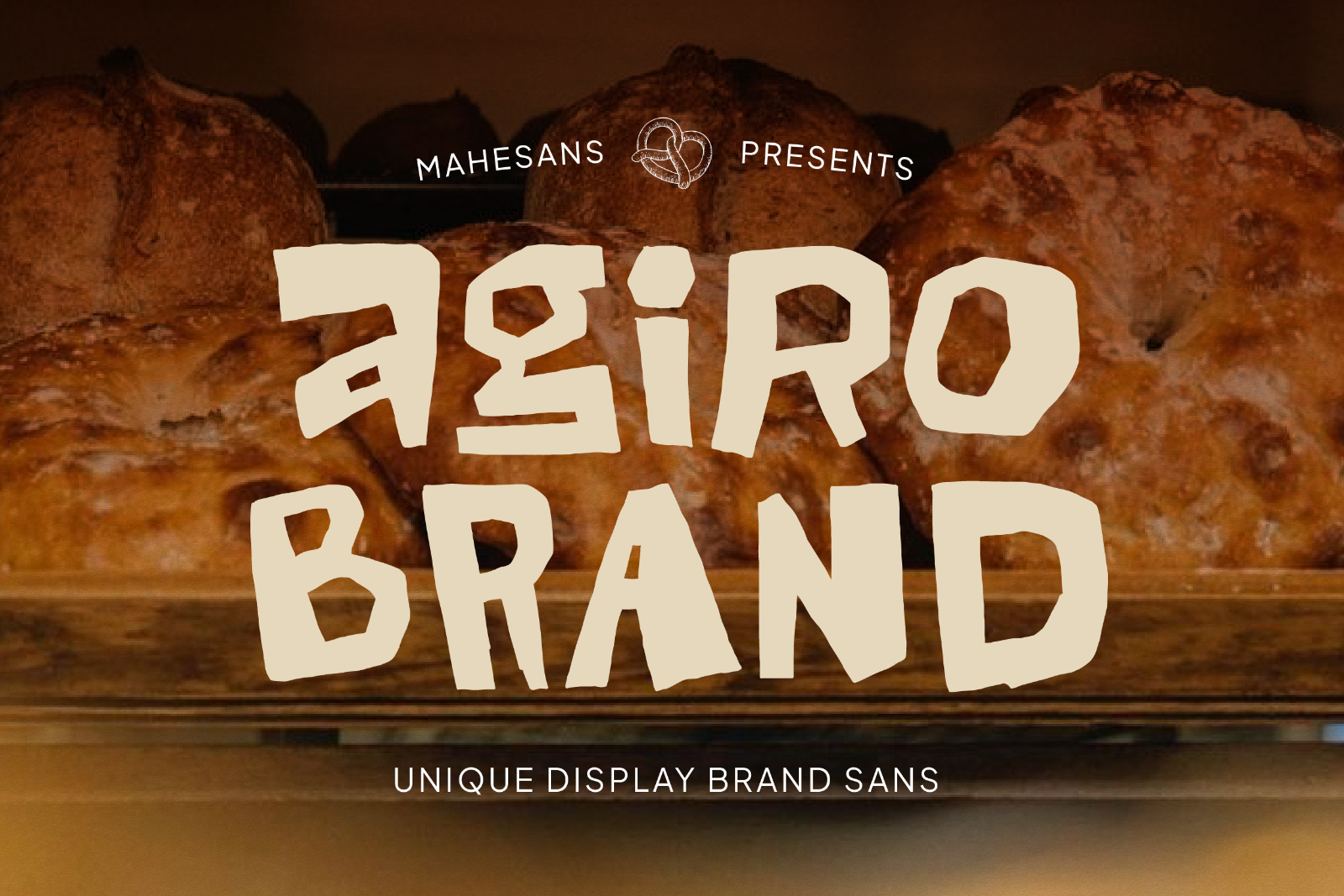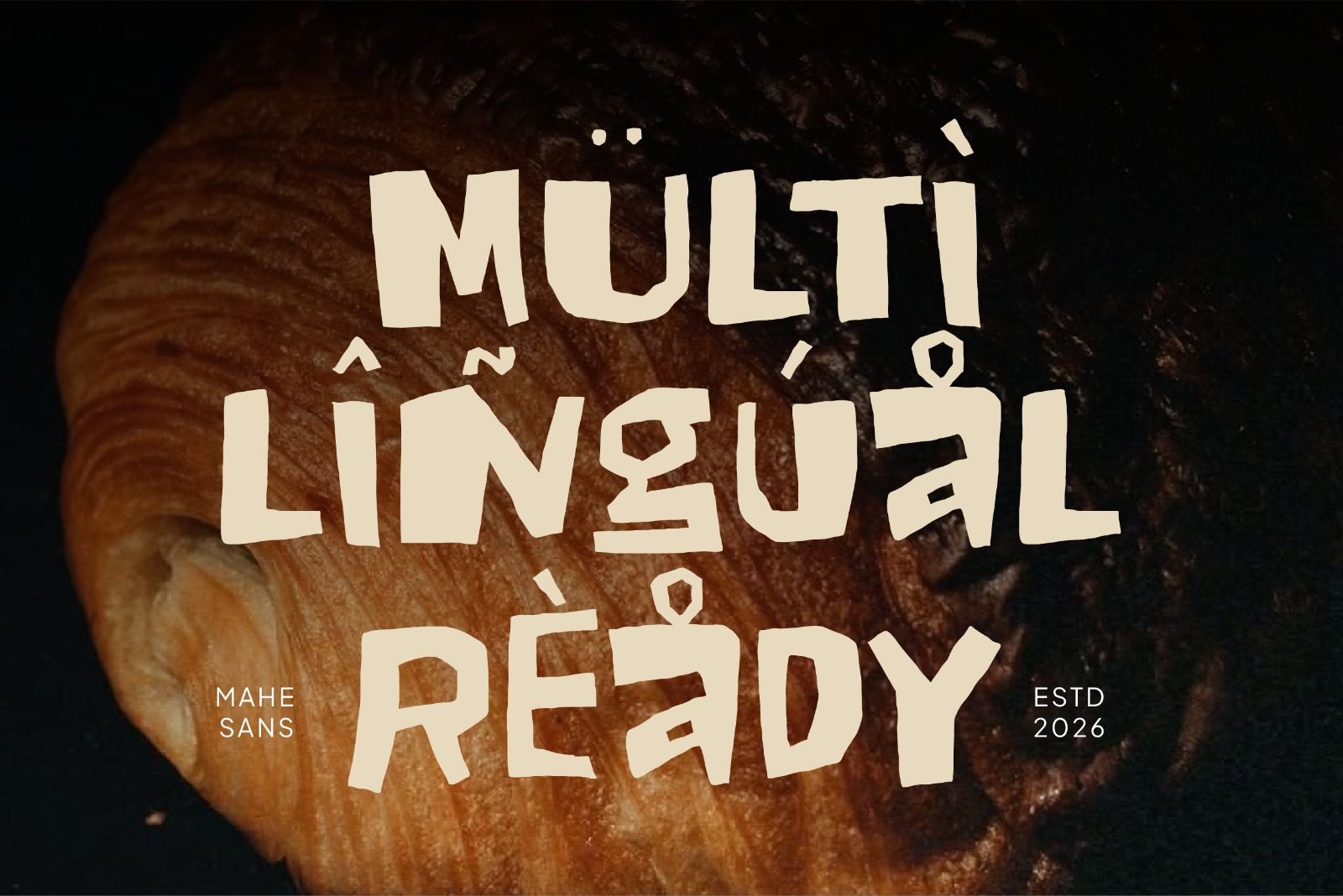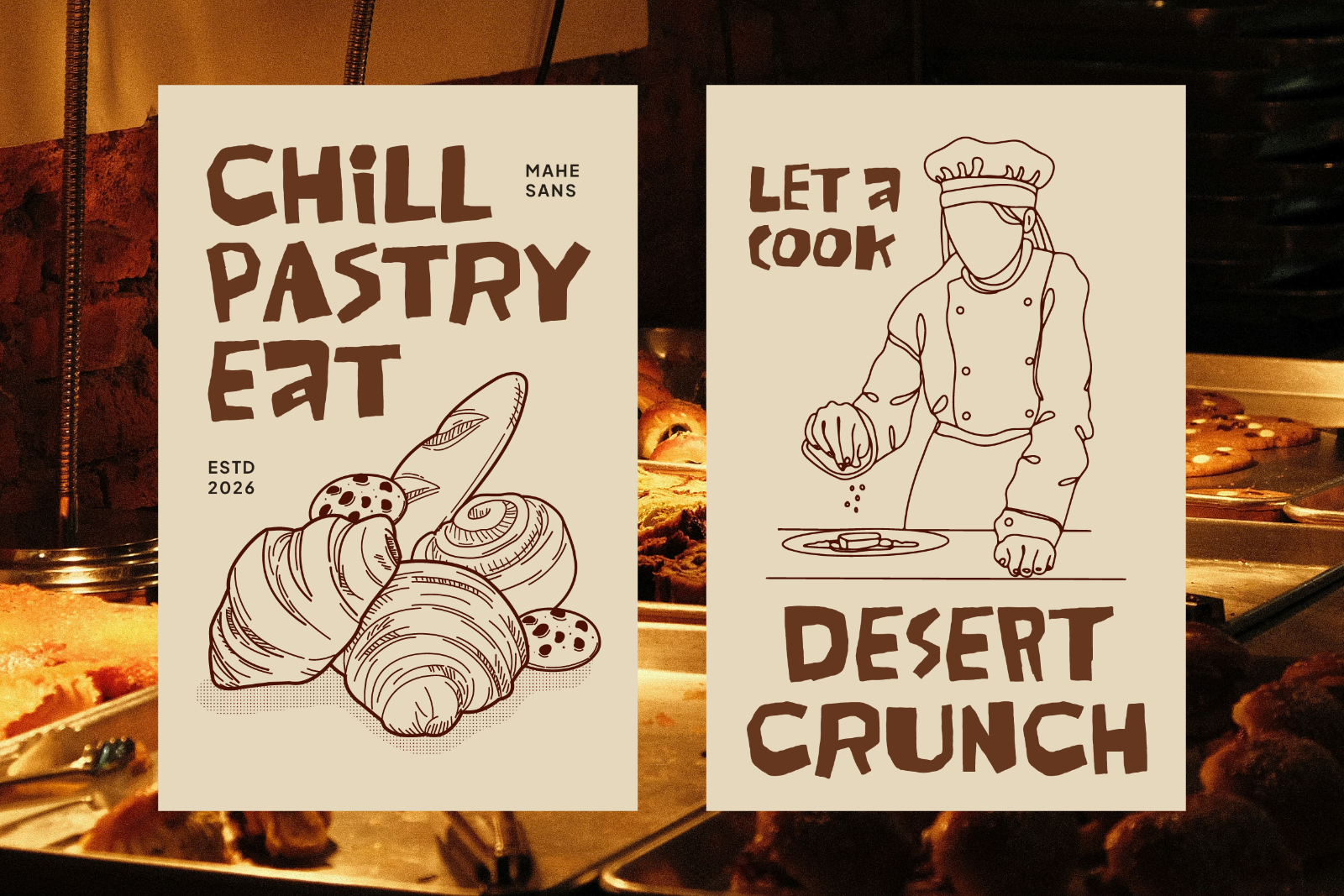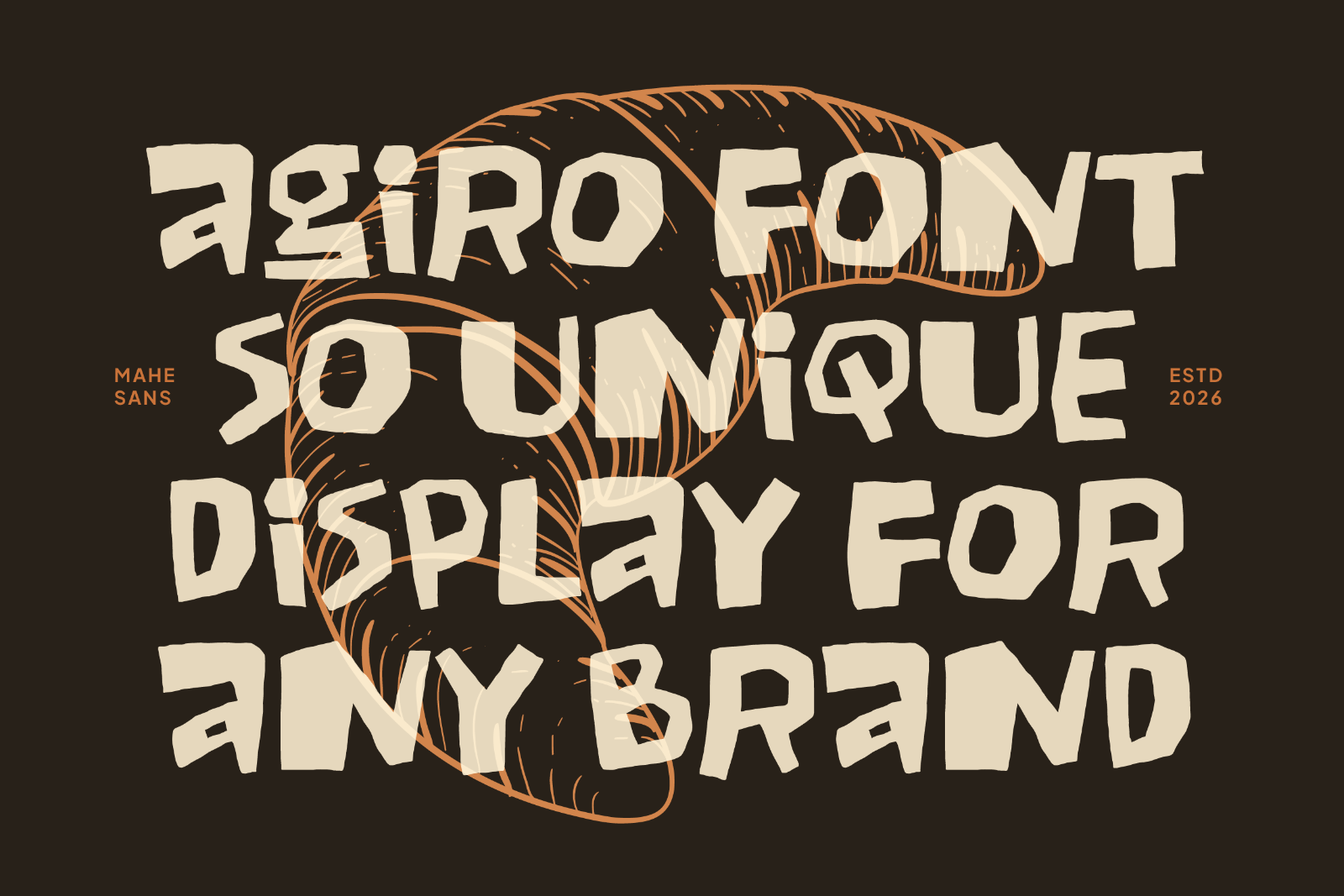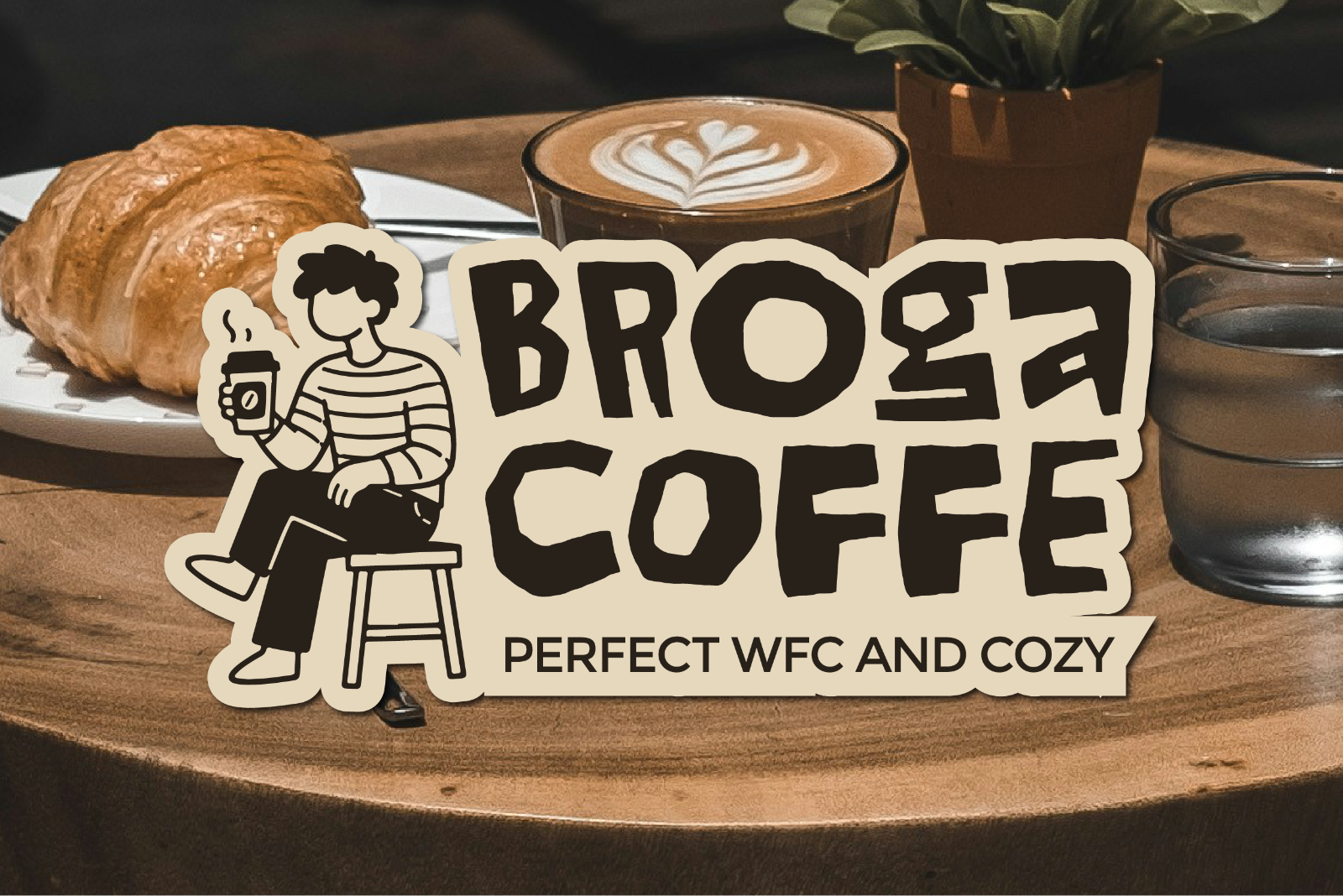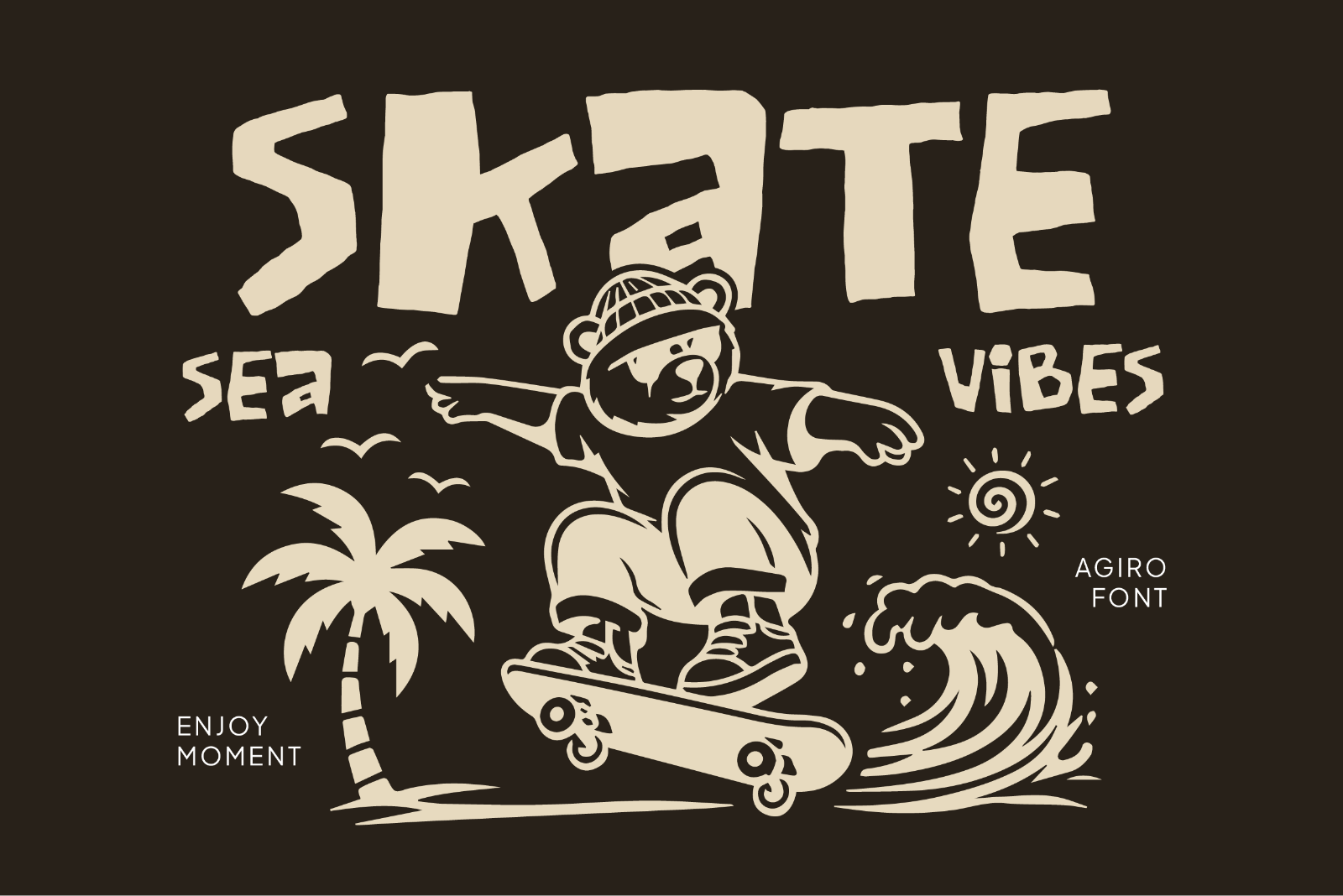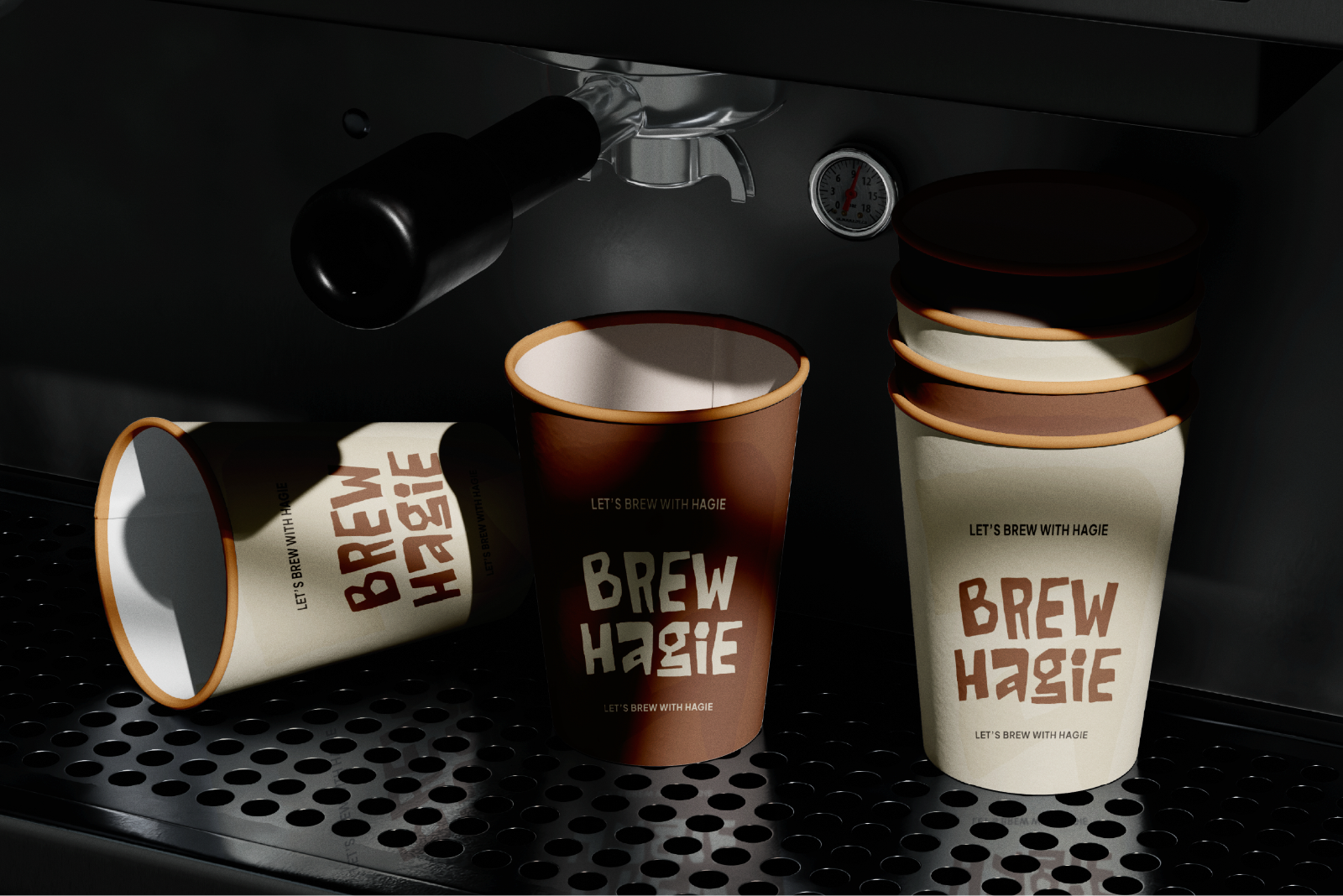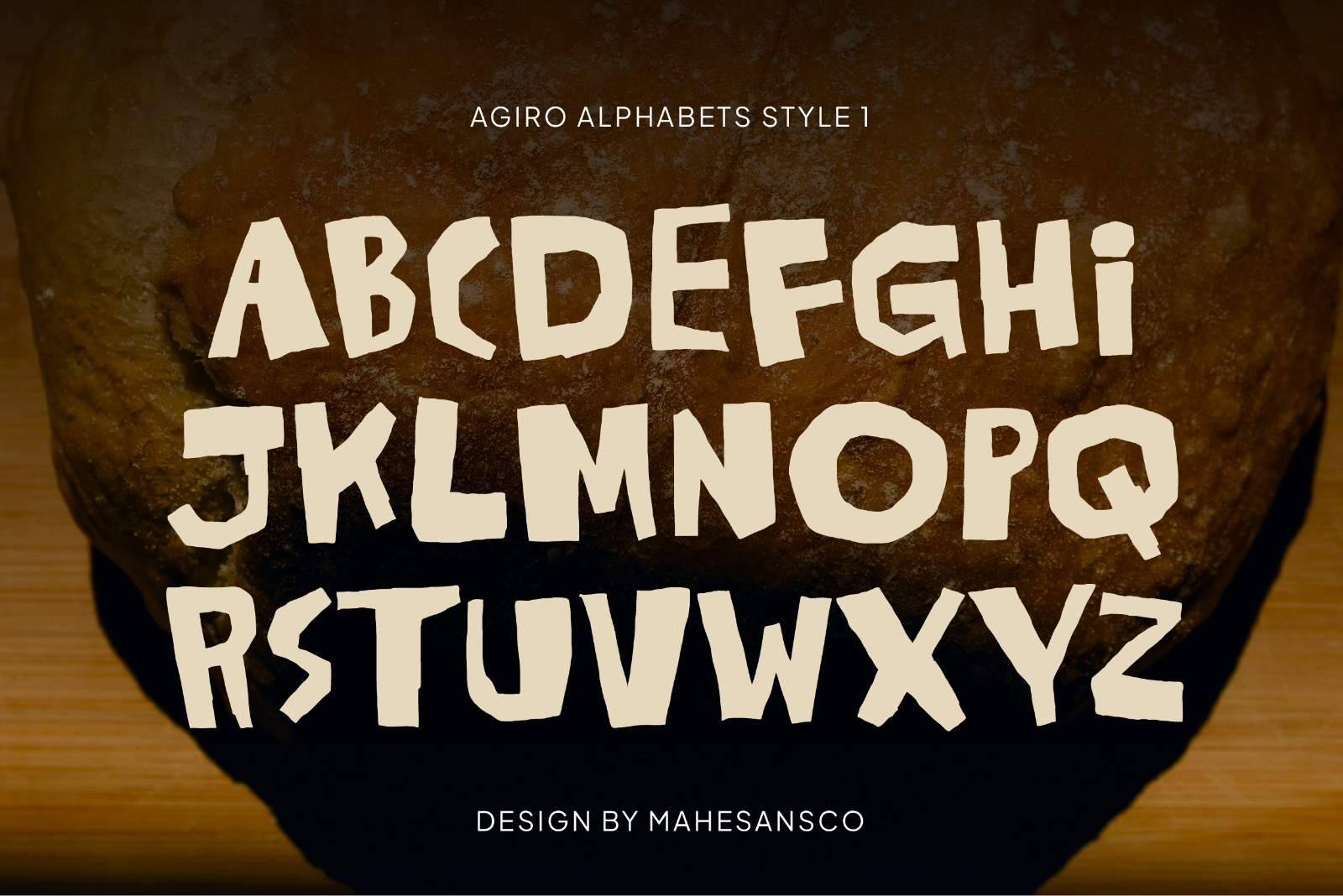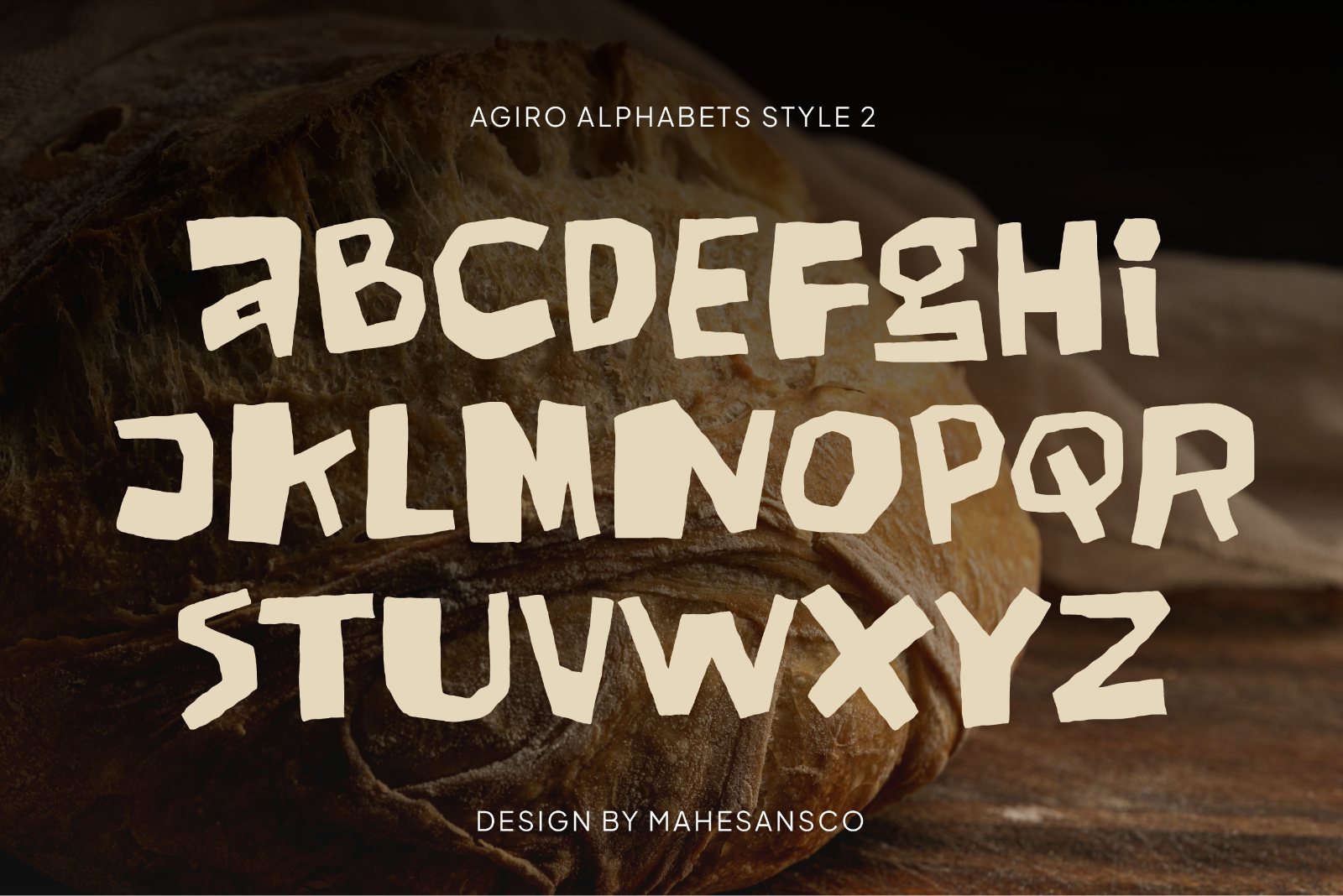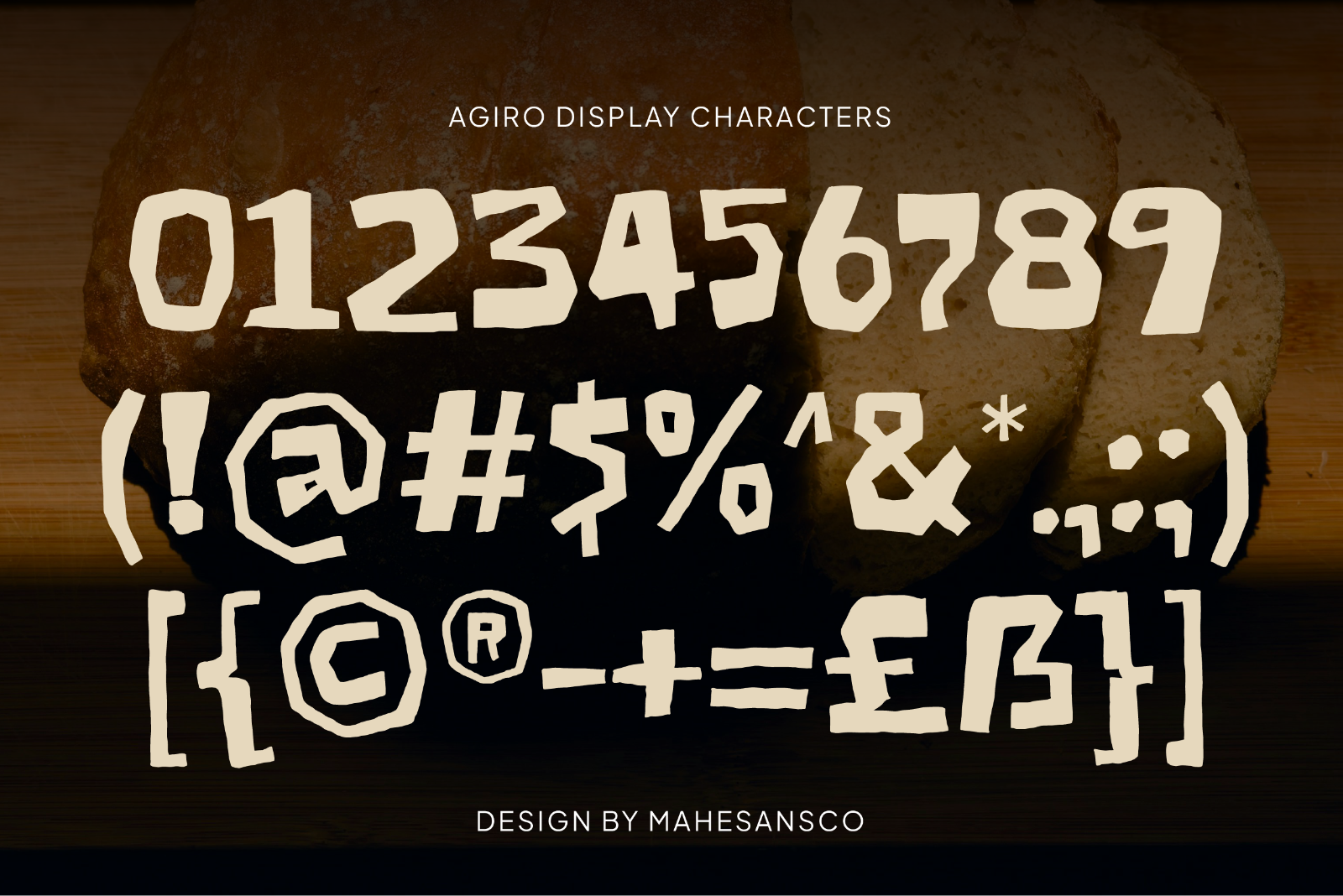
Introducing Agiro Brand, a unique display sans font inspired by handcrafted lettering, artisanal branding, and playful visual storytelling. Designed with intentionally irregular shapes and organic forms, Agiro Brand brings a warm, authentic personality that instantly stands out from conventional display fonts.
Its bold appearance and handcrafted character make it an excellent choice for branding projects that demand originality and charm. Whether you're creating logos, packaging, café menus, bakery labels, posters, children's products, apparel graphics, social media content, or creative merchandise, Agiro Brand delivers a memorable and approachable look.
The font balances playful energy with strong visual impact, making it suitable for both modern and vintage-inspired designs. Every letter is carefully crafted to create a natural handmade feel while maintaining excellent readability in headlines and display applications.
Perfect For:
• Branding & Logo Design
• Bakery & Cafe Packaging
• Food and Beverage Projects
• Posters & Advertising
• Children's Products
• T-Shirt Designs
• Stickers & Merchandise
• Social Media Graphics
• Creative Editorial Layouts
• Handmade & Artisan Brands
• Multilanguage